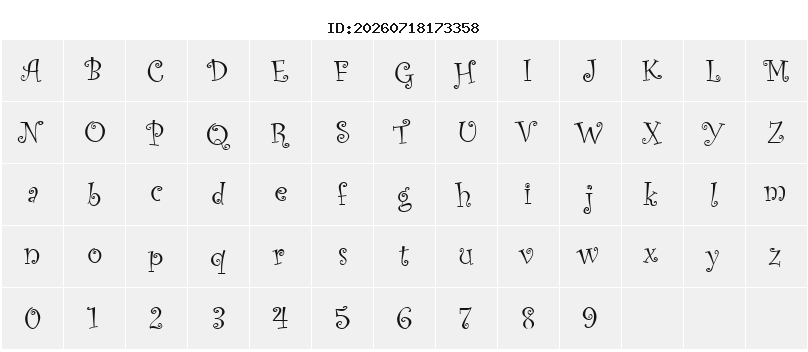
• Font Name: Curlz MT
• Designer: Steve Matteson and Carl Crossgrove
• Manufacturer: Monotype Typography
• Description: Curlz was designed by Steve Matteson and Carl Crossgrove in 1995. For a unique, festive touch, add a little Curlz to posters, flyers, invitations, menus and tee shirts.